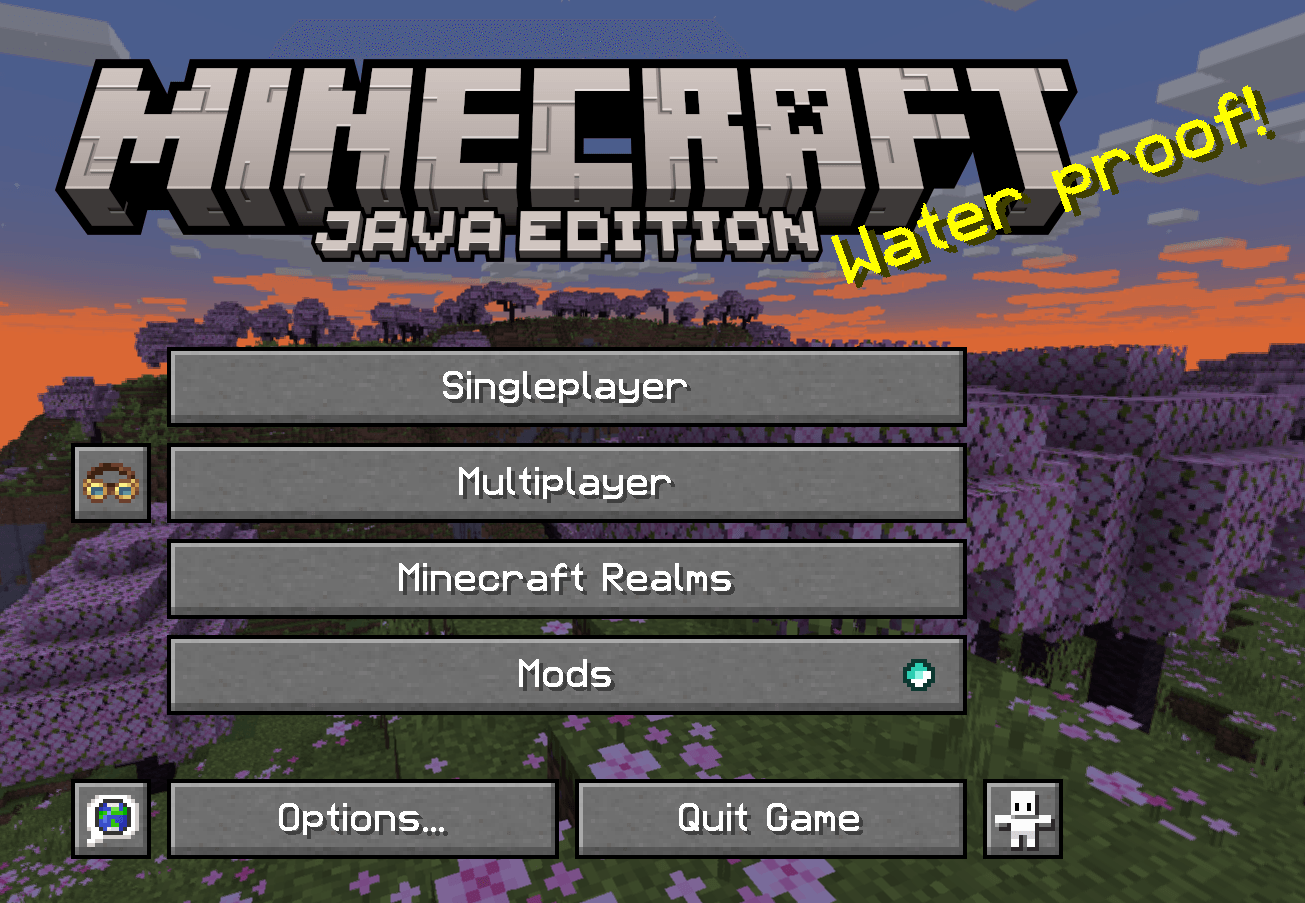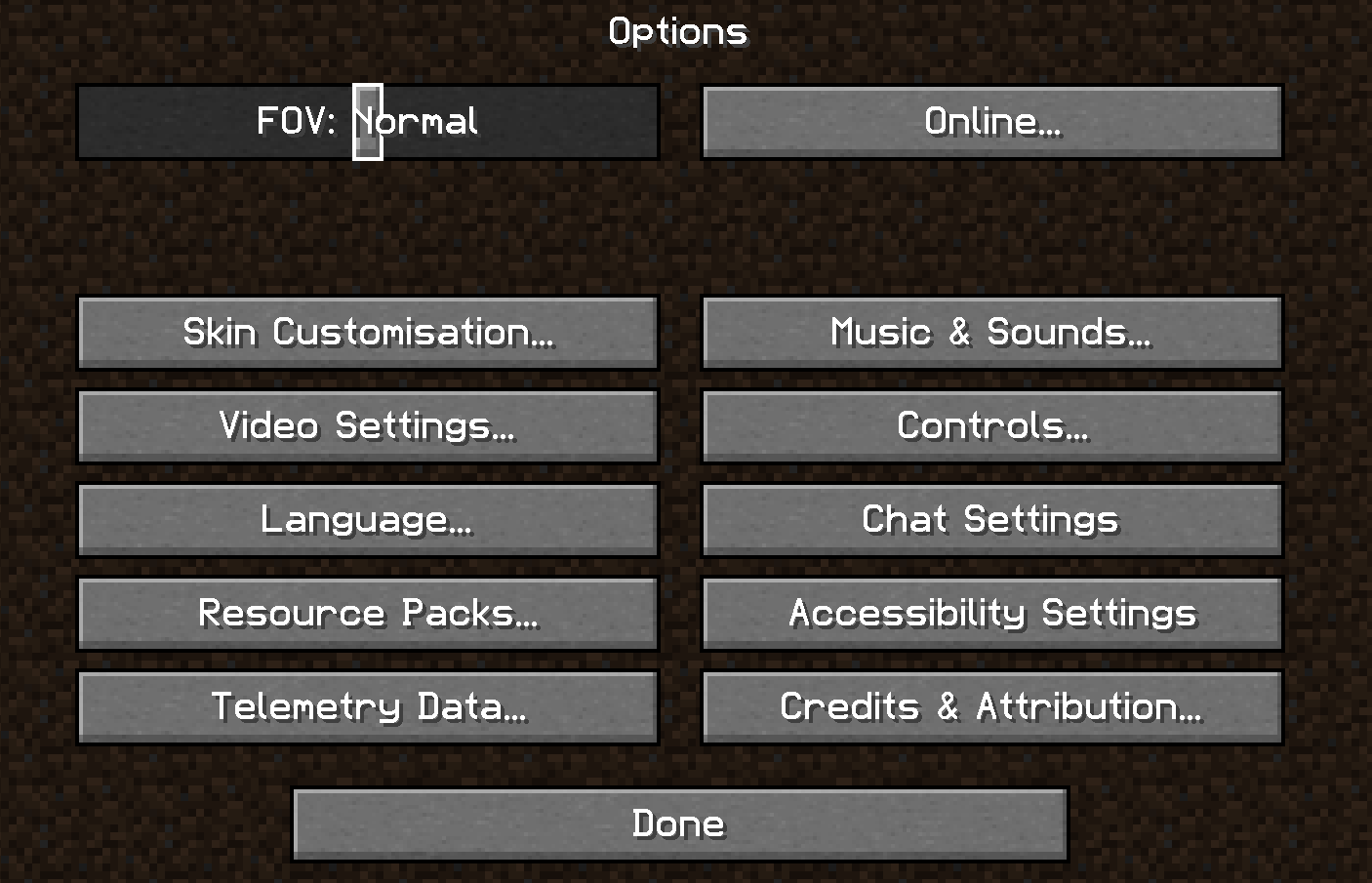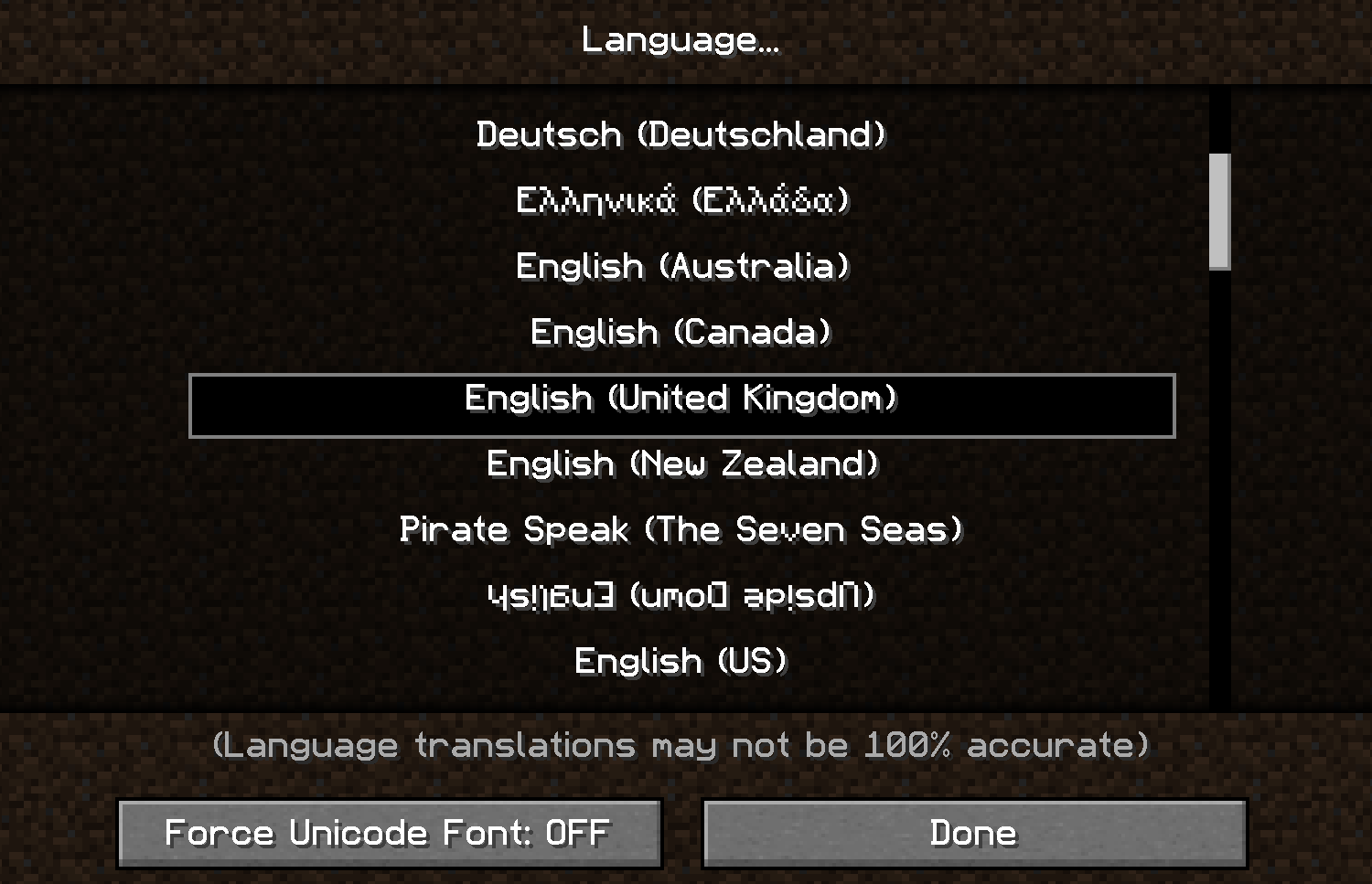
Better Font - A smoother, rounder font for Minecraft.
- > All characters are hand-drawn with clean and rounded edges. The design keeps the classic pixel style while improving readability in-game.
> Features:
- Hand-drawn characters
- Smooth and round edges